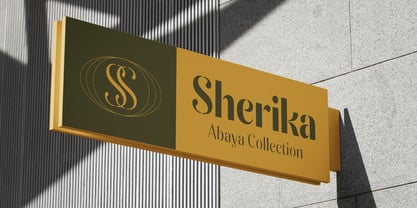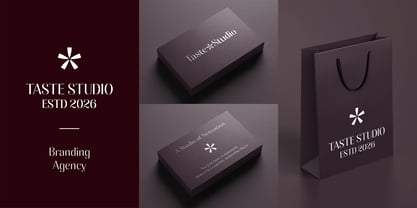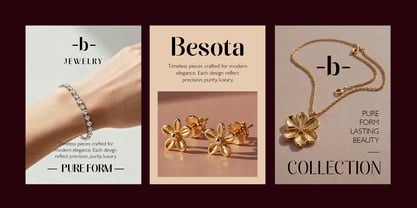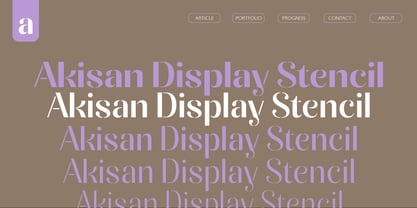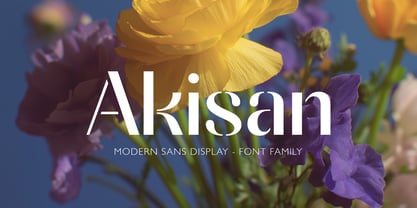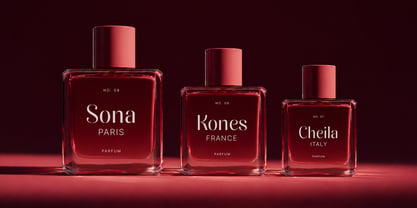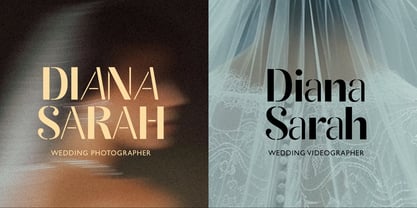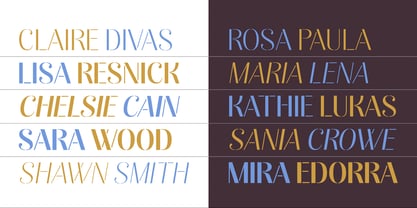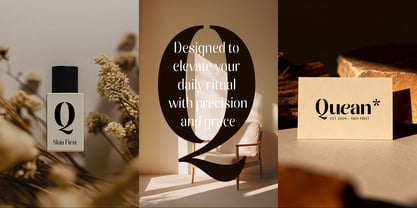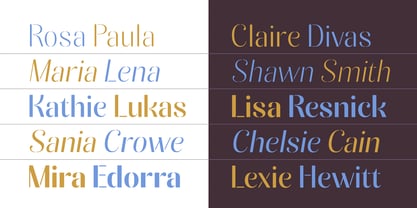
Akisan
by Akbartype
The Akisan Font Family was designed by Azzura . and published by Akbartype. Akisan contains 181 styles and family package options. More about this family
Akisan is a modern sans serif stencil font that blends editorial elegance with a clean, contemporary edge. Its letterforms feature subtle contrast, balanced proportions, and distinctive details that create a strong visual identity while maintaining clarity. Designed to shine at larger sizes, Akisan is ideal for headlines, branding, luxury packaging, and fashion or beauty-focused designs. The overall tone feels sophisticated, minimal, and artistic—making it a strong choice for projects that require a refined yet modern aesthetic. The family is built with a versatile system of 9 weights, 5 widths, 2 Forms: hard and soft. providing extensive flexibility across different design contexts. It also includes carefully adjusted italic styles, ensuring consistent rhythm and visual harmony across both upright and slanted forms. Akisan supports international languages, making it suitable for global branding and multilingual projects.